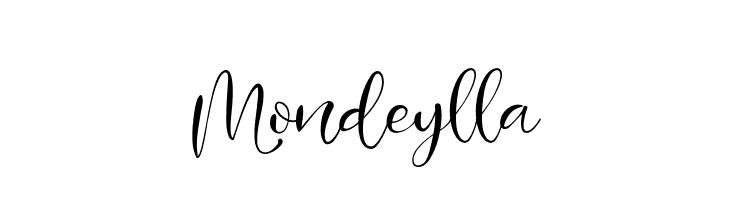
A lively and flowing script font with elegant cursive letterforms.
A lively and elegant script font with flowing, cursive letters and dramatic flourishes.
A bold, expressive script font with flowing, cursive letters.
A whimsical, cursive script font with elegant loops and swirls.
A playful, handwritten font with rounded edges and a casual style.
An elegant and flowing script font with sophisticated, sweeping curves.
A graceful and flowing script font with elegant, interconnected strokes.
A playful and elegant script font with a handwritten feel.
A cursive, handwritten font with elegant, flowing strokes.
A bold, cursive script font with smooth, connected strokes.